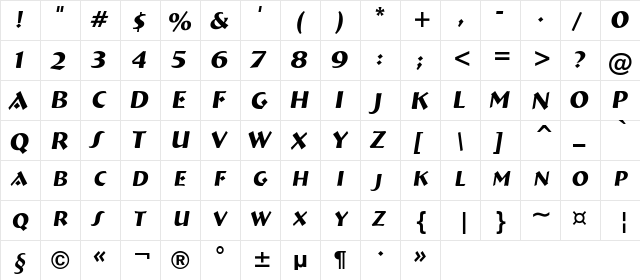
a_BremenCaps Italic Font Preview
a_BremenCaps Italic
a_BremenCaps Italic Font Details
Design Context for a_BremenCaps Typeface
a_BremenCaps is a composed and adaptable typeface that performs quietly and consistently across a wide range of design contexts. Its italic angle brings a sense of urgency and motion to the letterforms.